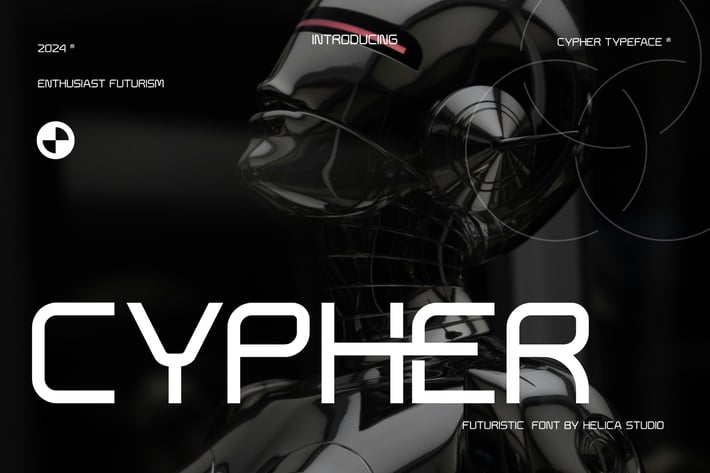
Cypher Modern Futuristic Sans Serif Font
Cypher Modern Futuristic Sans Serif Font typeface is perfect for crafting elegant quotes, stunning logos, captivating magazine headers, and so much more.